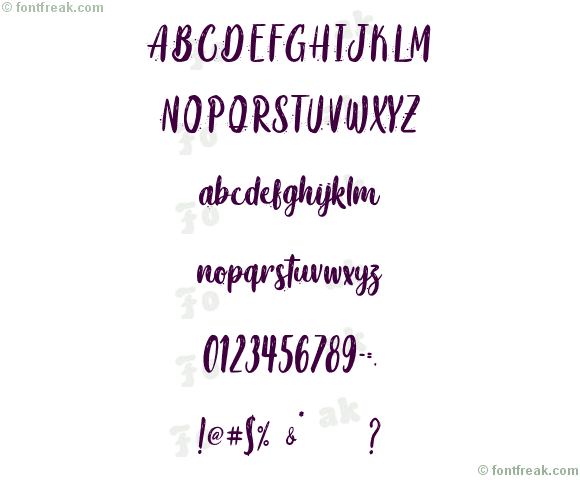
Coaster Quake - Personal Use
Coaster Quake - Personal Use, designed by Suthi Srisopha, is a charming display font that captures a playful yet artistic essence. This unique typeface showcases a handwritten style, characterized by its whimsical strokes and slightly irregular shapes that lend it a personal touch. The font features a medium stroke weight with soft contrasts, ensuring readability while preserving its decorative appeal. The spacing between letters is well-balanced, allowing for clarity in various applications. The design includes subtle splatters and imperfections, enhancing its organic feel and making it perfect for creative projects.
This font is ideal for a variety of use cases, including crafting eye-catching wedding invitations that exude warmth and personality, designing vibrant movie posters that capture attention, creating trendy restaurant menus that invite diners in, and enhancing social media graphics that stand out in a crowded feed. Its playful aesthetic makes it particularly appealing to small business owners looking to add a personal touch to their branding and marketing materials.
Targeting graphic designers, content creators, and entrepreneurs, Coaster Quake - Personal Use font free download offers a versatile option for those seeking to infuse their projects with creativity and charm. Its unique characteristics resonate well with audiences who appreciate an artistic flair and a handmade feel in typography.
What sets Coaster Quake apart is its ability to convey a sense of fun and creativity while remaining functional for various design needs. Whether you're crafting a heartfelt invitation or a striking promotional piece, this font provides the perfect balance of personality and professionalism, making it a standout choice for anyone looking to elevate their design work.